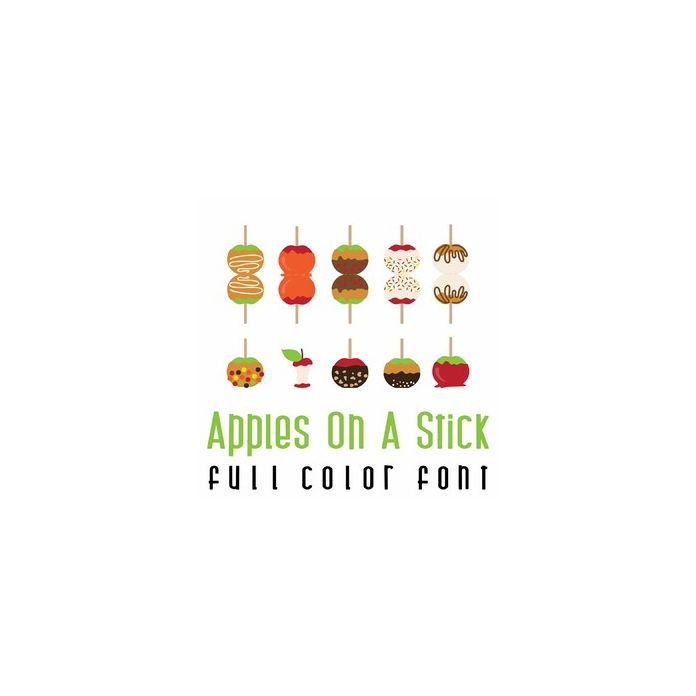
Create fun cards with this fun full color doodlebat font. This font contains 52 images A-Z is apples and caramel apple cards, lowercase a-z is caramel apples. Perfect for all your cardmaking needs!